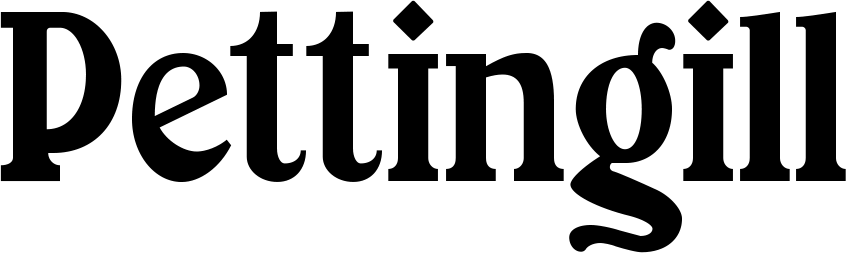
Pettingill CF Font
Sometimes a simple asymmetry can turn a boring formal font into a distinctive and brilliant retro font like Pettingill CF. This font conveys a sense of simplicity, cheerfulness, and playfulness to the audience, thus, it is the first choice of graphic artists for writing the titles of presentations and designing book covers, and gift cards.
Pettingill CF is my revival, completely redrawn, of Arlington Old Style, a typeface I found in Pettingill Type Book (Pettingill & Co., 1901). This font is a bold serif font appropriate for posters, advertising, logos, headlines, signage and greeting cards. Pettingill CF could also support a vintage-modern design, and would be appropriate as a Secessionist font. Some of the glyph shapes are especially interesting. I find the “g” quite beautiful and the “a” elegant. The shape of the number 4 is interesting too.
Pettingill CF required quite a bit of redesigning since the stems in the glyphs were not regular, and the upper and lower serifs had a bewildering variety of dimensions. I believe I resolved this issue and made Pettingill useful for contemporary digital work.
I also enjoyed some of the copy in the display texts. Here are two examples: 1. “Song of Home composed by one who never spent a minute there;” 2. “Even if our prices were just as high as those of the average store, it would pay you to come miles to purchase here.” And you thought hype was a new thing!